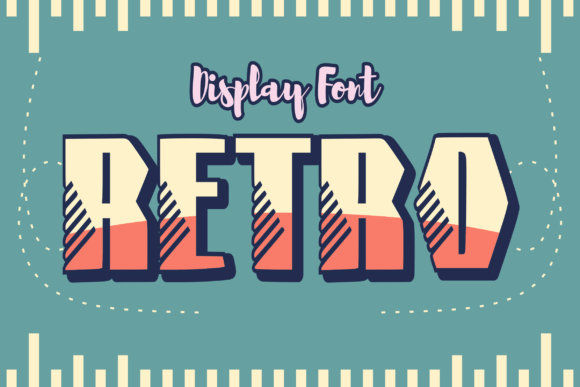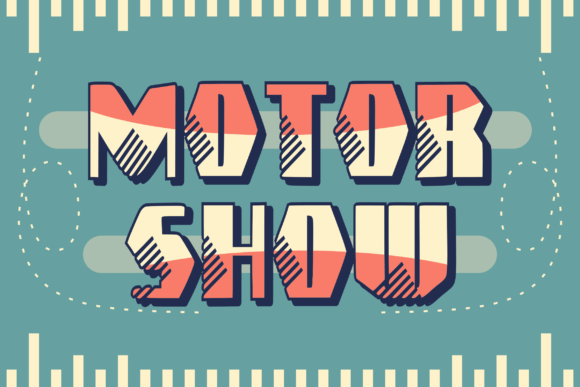
Introduction to Rocky Boy Font
You know that moment when you’re working on a creative project, and you need just the right design resource to bring it to life? For many designers, that moment often comes when they’re looking for a font that’s not only functional but also visually appealing. That’s where the Rocky Boy Font comes in – a retro font that’s sure to add a touch of nostalgia and whimsy to your designs.
Imagine a font that’s so charming, it can turn even the most mundane tasks into a fun and engaging experience. That’s exactly what the Rocky Boy Font offers, with its fantastic lines and transparent background that’s perfect for posters, headlines, and more. And the best part? It’s available for free download, making it a high-quality design resource that’s accessible to designers of all levels.
Key Features of Rocky Boy Font
- Unique, hand-drawn design suitable for creative projects that require a personal touch.
- Perfect for use in logos, branding materials, and other design elements where a unique, hand-drawn look is desired.
Honest Review: Rocky Boy Font
I recently had the opportunity to work with the Rocky Boy Font, and I must say it’s a solid addition to any designer’s toolkit. As a design resource, it offers a lot of creative possibilities for any project.
- ✨ High-quality font with a unique, rugged feel that’s perfect for outdoor or action-themed projects.
- ⚠️ The font may not be the best choice for projects that require a more formal or elegant look.
- ⚠️ Some users may find the font’s rough edges a bit distracting, especially when used in large quantities.
Overall, I’m impressed with the Rocky Boy Font. While it may not be the perfect choice for every project, it’s a valuable addition to any designer’s collection, and its unique look can add a lot of character to your work.